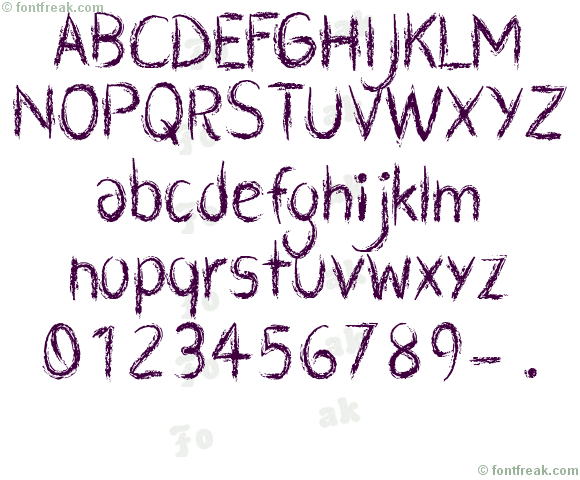
CF Zombie Party Regular
About CF Zombie Party Regular
CF Zombie Party Regular, crafted by Cloutierfontes, is a distinctive display font that effortlessly captures a playful yet eerie aesthetic. This font falls into the decorative category, making it an ideal choice for projects that call for a whimsical and spooky vibe. Its unique visual characteristics include a rough, hand-drawn appearance with irregular stroke weights that evoke a sense of fun and mischief. The contrast between thin and thick strokes adds depth, while the uneven spacing and jagged edges enhance its quirky charm.
This font is particularly suited for a variety of creative applications. It shines in Halloween-themed invitations, setting a festive tone that resonates with the spirit of the season. Additionally, CF Zombie Party Regular is perfect for movie posters, especially for horror or comedy genres, where its playful design can draw in audiences. It also works well for children's party decorations, helping to create a lively atmosphere. Furthermore, small business owners in the entertainment or party planning sectors may find this font useful for branding elements or promotional materials.
Targeted towards graphic designers, content creators, and small business owners, CF Zombie Party Regular opens up a world of creative possibilities. Its unique style appeals to those looking to make a memorable impression, whether in print or digital formats.
What sets CF Zombie Party Regular apart is its ability to blend a whimsical design with a touch of spookiness, making it versatile for various themes. The font stands out not only for its originality but also for its accessibility, as it is available for free download. For anyone seeking a font that captures the essence of fun and fright, the CF Zombie Party Regular font free download is an excellent choice to elevate your creative projects.